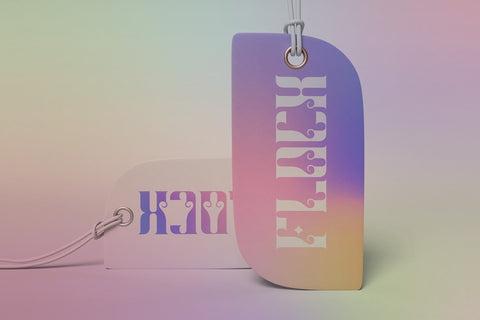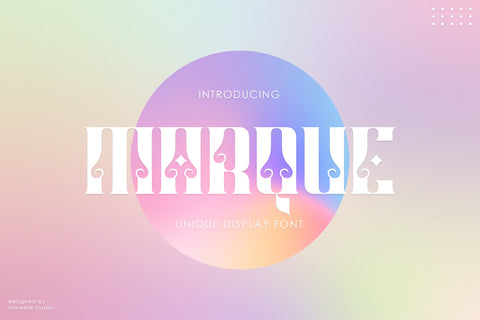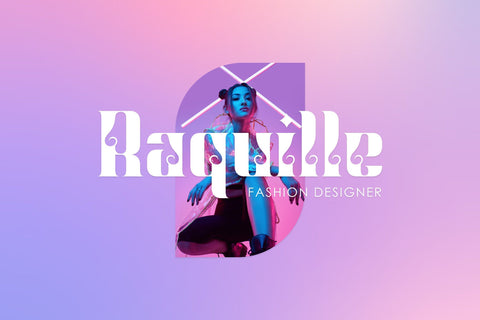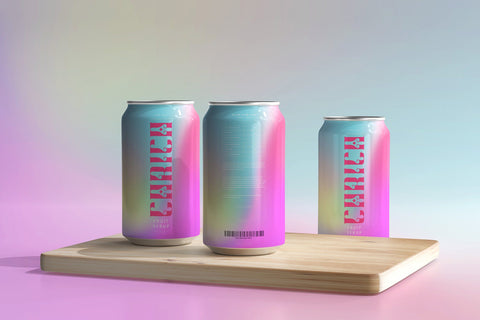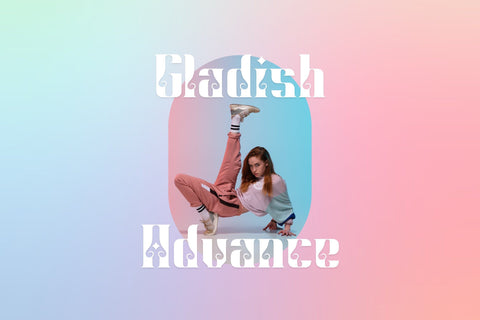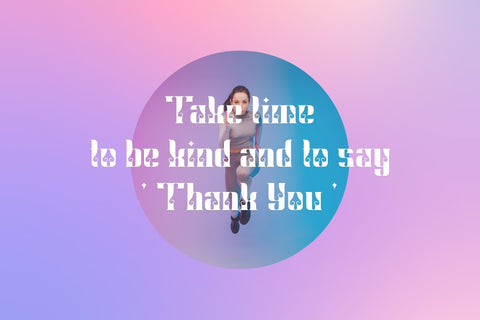
Marque | Display Font
Introducing our latest display typeface named Marque Typeface. A serif with classy and decorative style. This font perfectly made to be applied especially in logo, and the other various formal forms such as invitations, labels, logos, magazines, books, greeting / wedding cards, packaging, fashion, make up, stationery, novels, labels or any type of advertising purpose.
- uppercase and lowercase
- numbers and punctuation
- multilingual & ligature